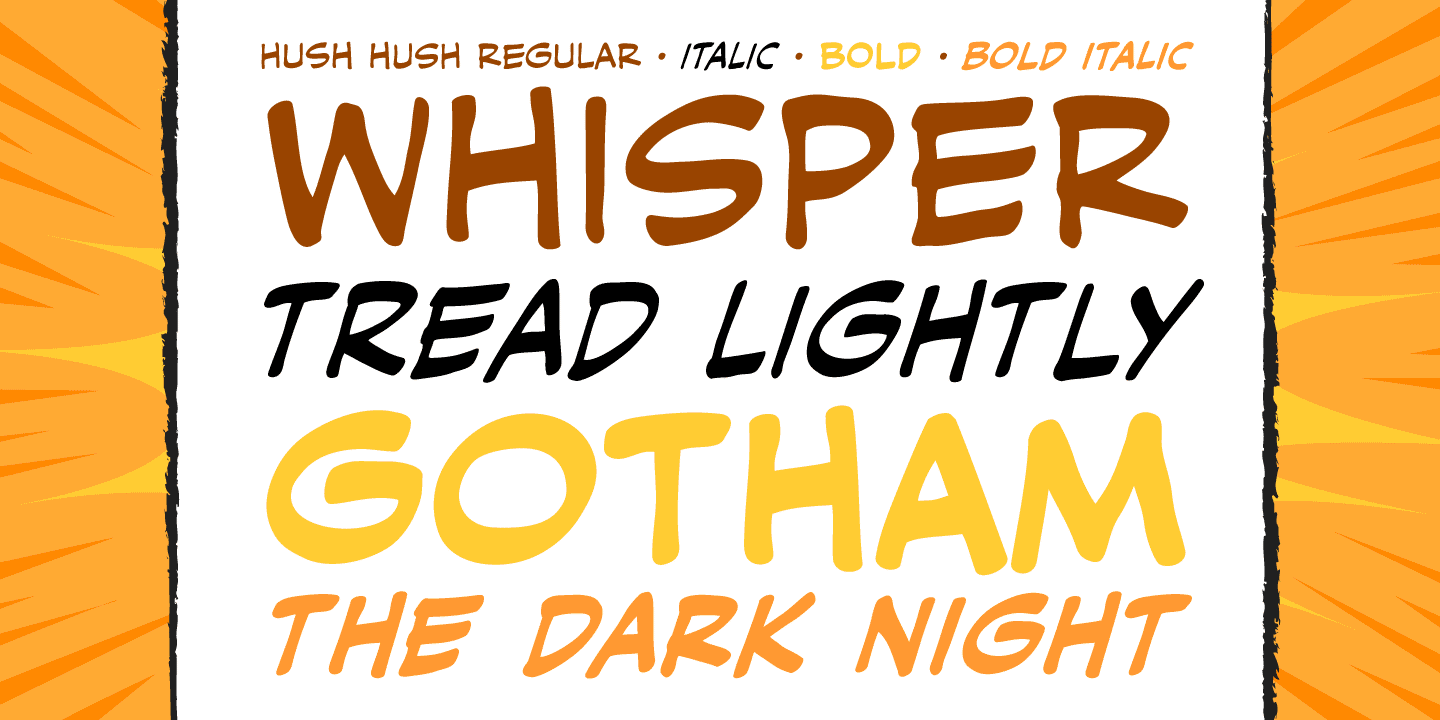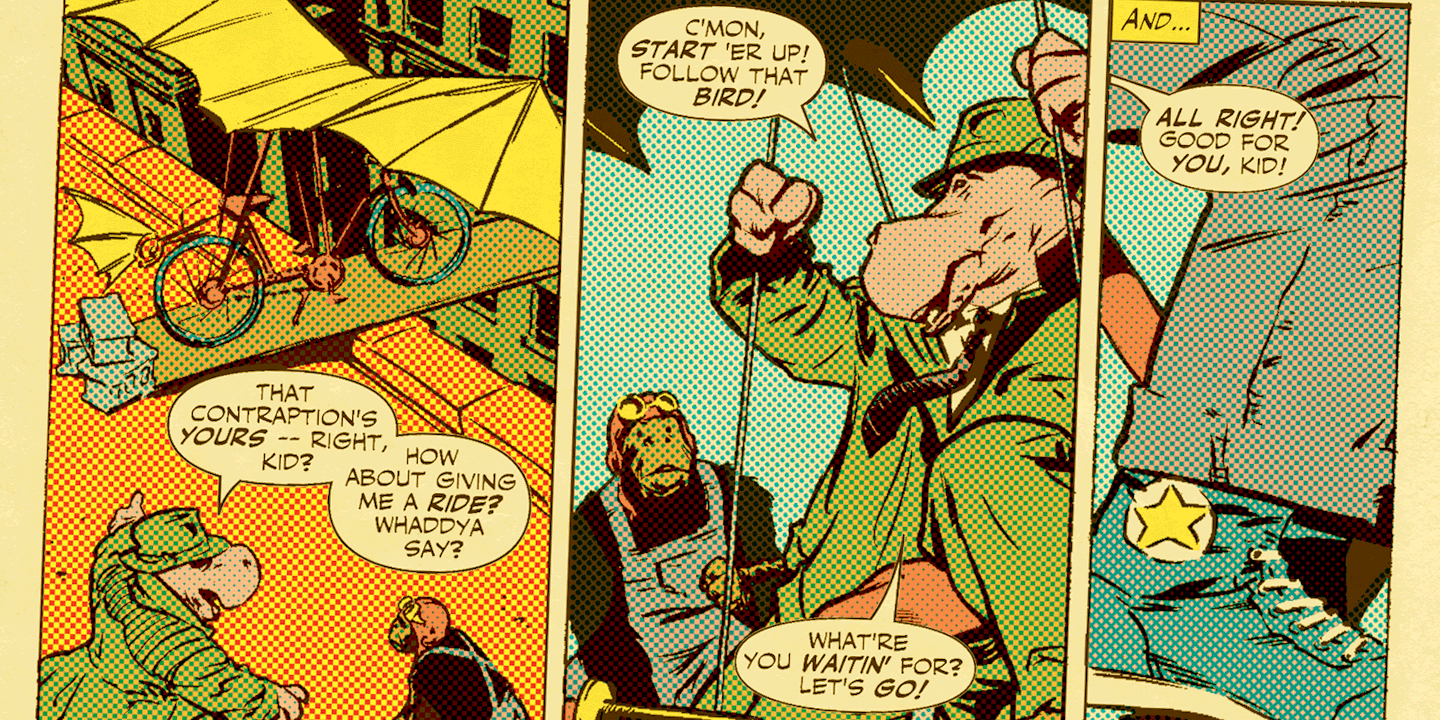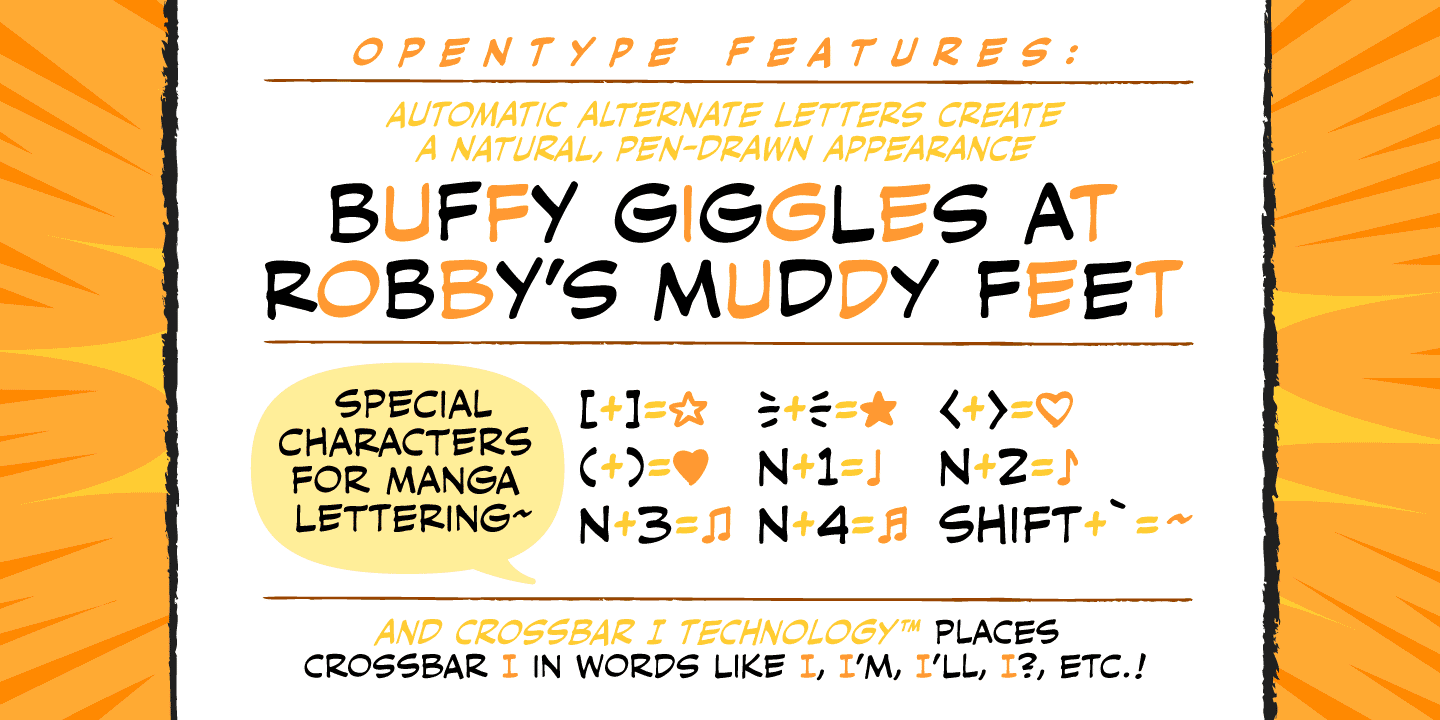
If you thought you heard someone callin’ your name just now, you might have caught the firm but soft-spoken tones of Comicraft’s classy balloon lettering font, HushHush. Created in the style of the newspaper strips of the 30s and 40s, HushHush…